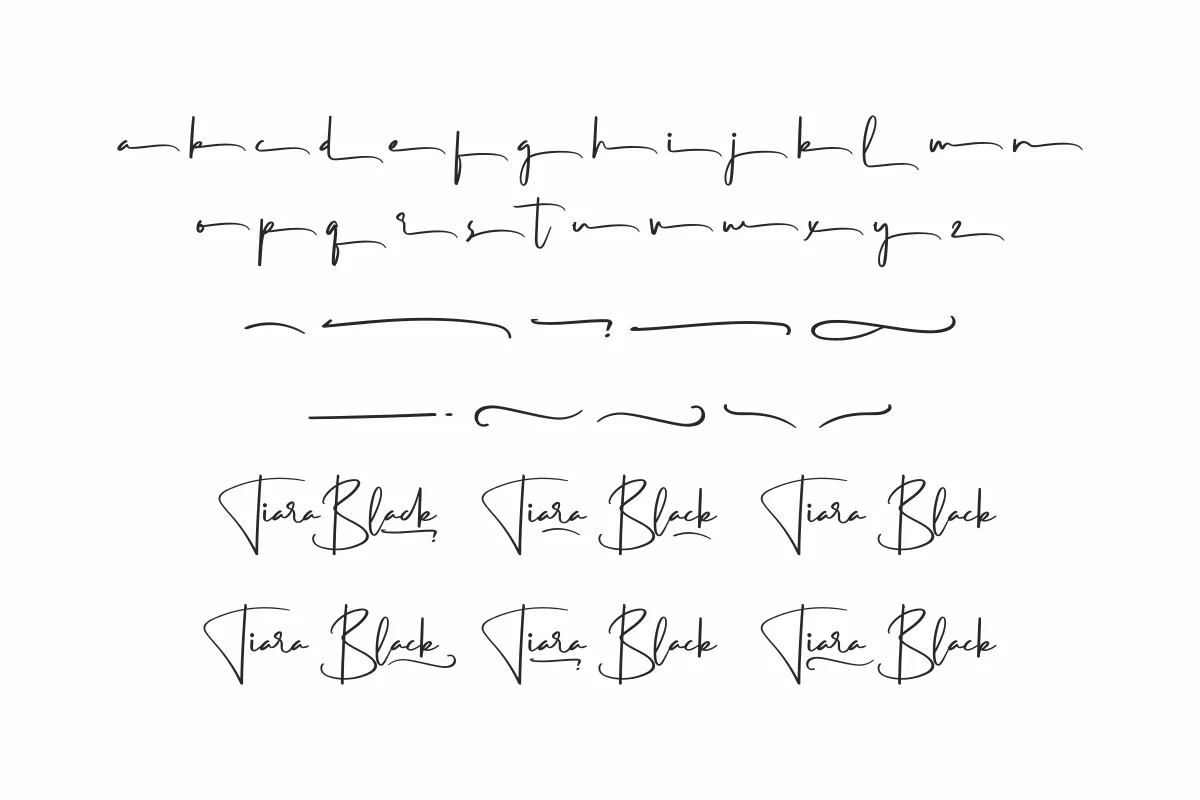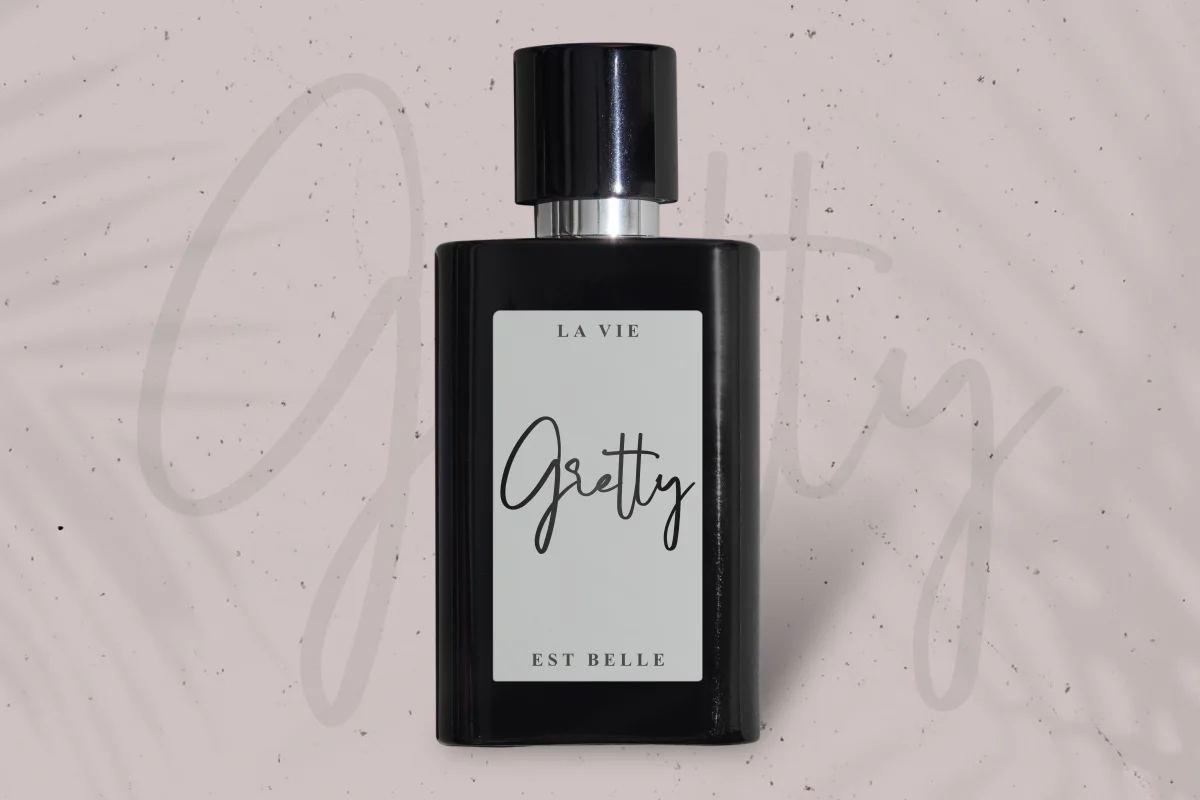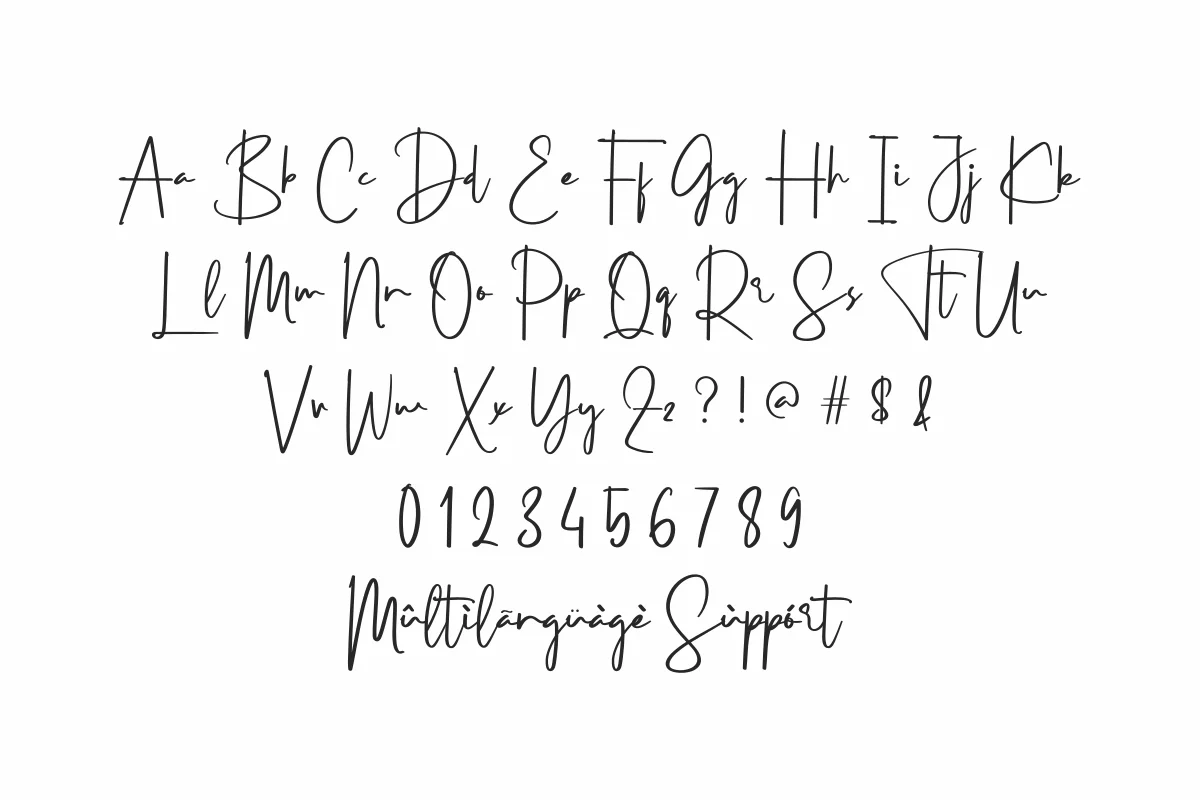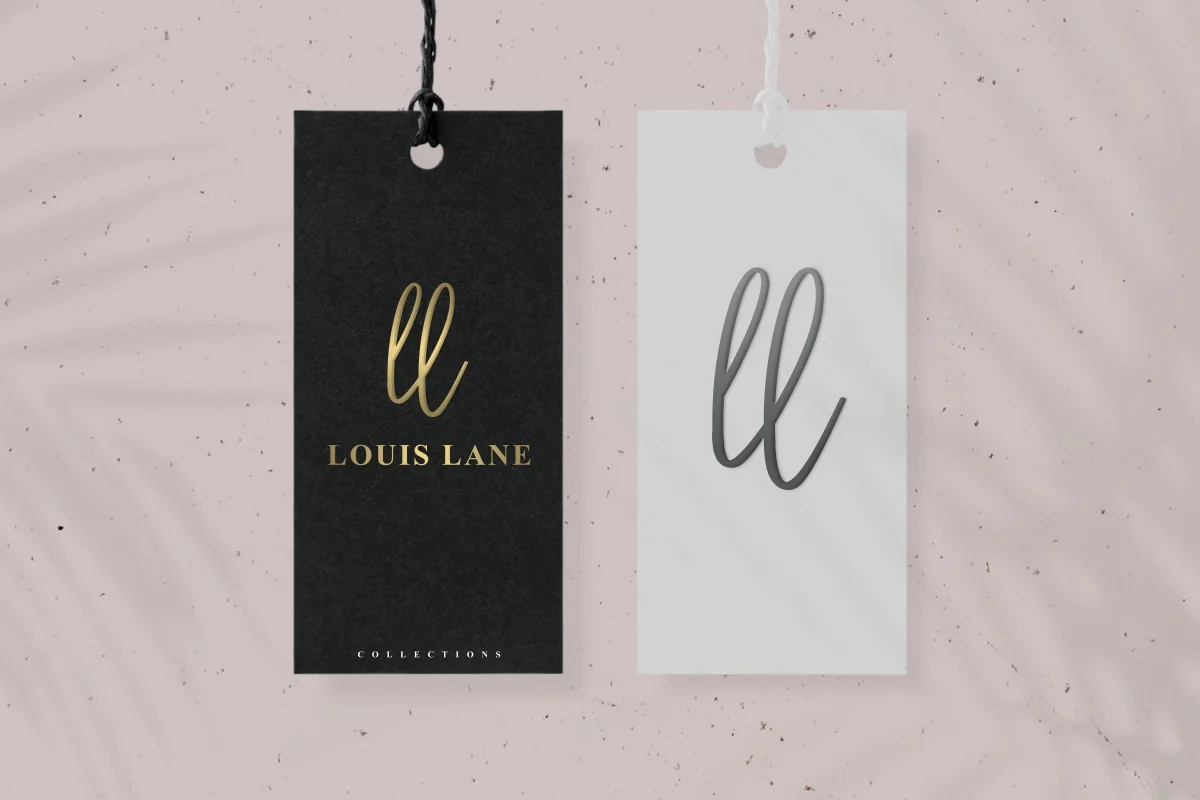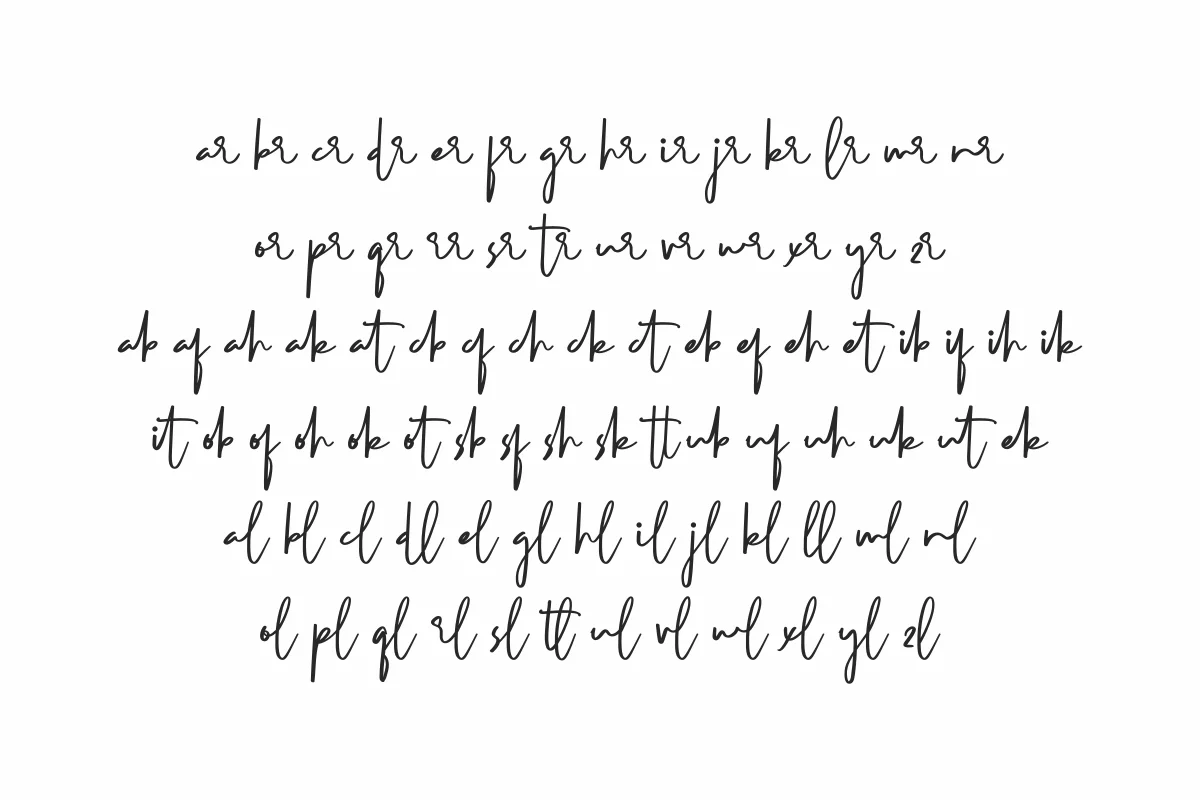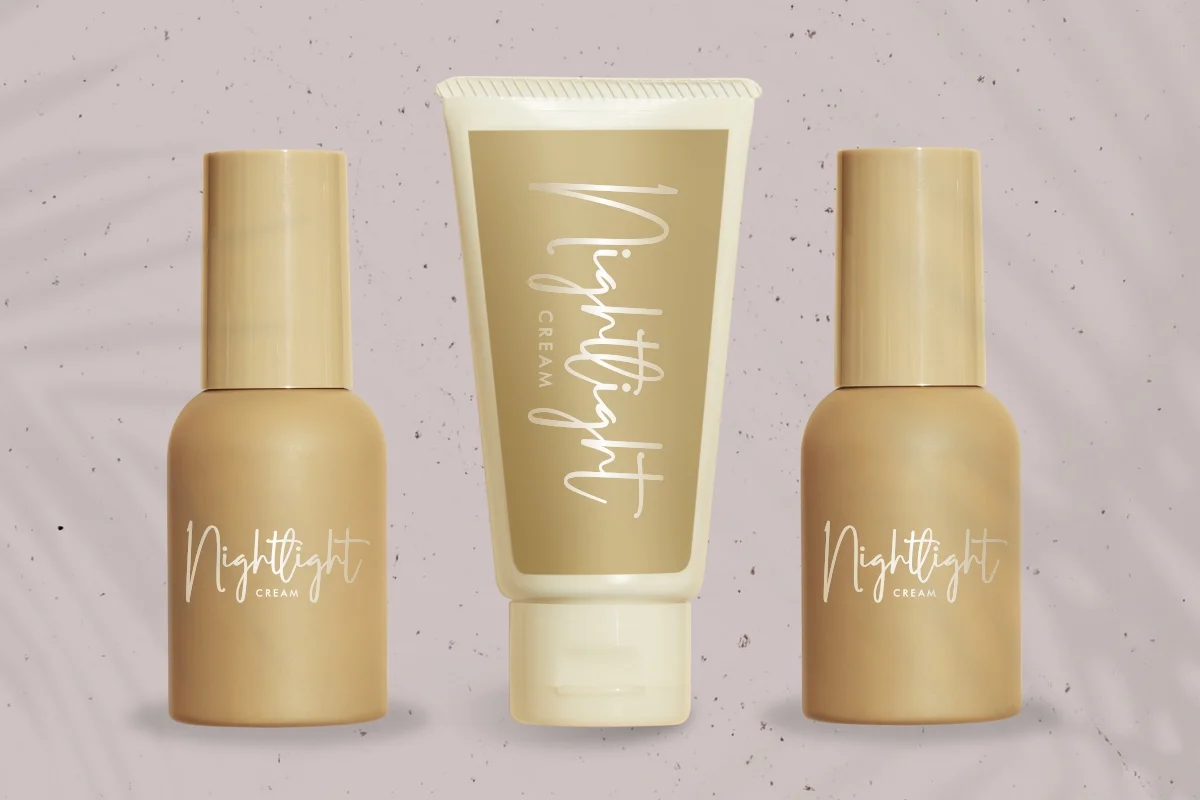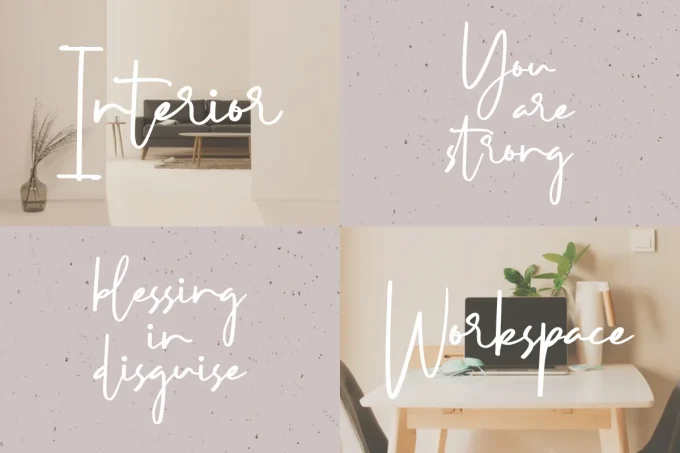
Tiara Black Font is a unique signature calligraphy handwriting font by NihStudio
Tiara Black Font is a modern cursive calligraphy signature typeface designed by Widi and Suci from NihStudio. Originally released in 2020, this elegant handwritten font brings a luxurious, stylish touch to any creative project.
Tiara Black Font is ideal for both digital and print use, including but not limited to:
Branding and Logo Design
Wedding Invitations & Event Stationery
Business Cards & Signage
Brochures, Flyers & Marketing Materials
Social Media Graphics
Luxury Fashion or Beauty Branding
This font fits beautifully into industries such as:
Wedding & Event Planning
Architecture & Real Estate
Floristry & Gardening
Legal Services
Makeup Artists & Influencers
Hospitality, Travel & Music
Elegant Handwriting with Modern Calligraphy Brush Strokes
Sophisticated, Glamorous, and Luxurious Feel
Clean & Stylish Light Brush Style
Perfectly Spaced & Kerned for Professional Results